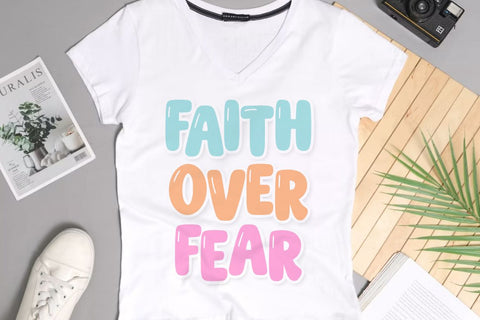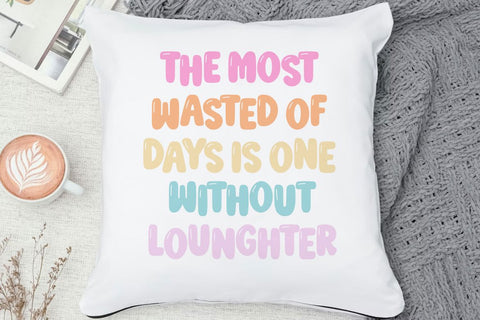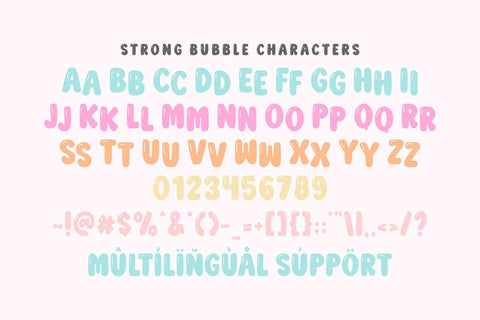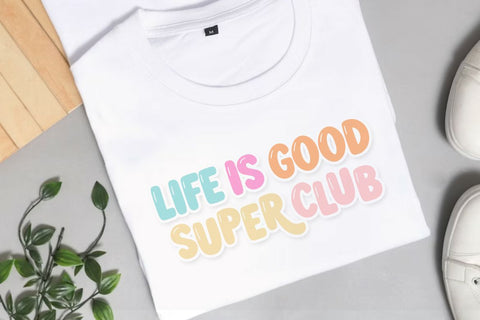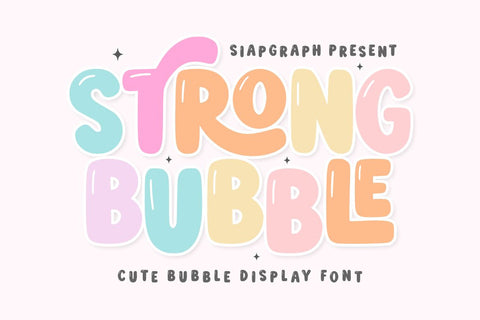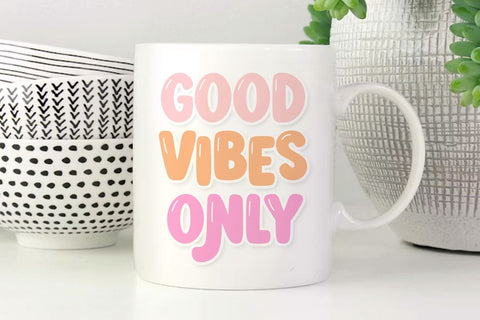
Strong Bubble - Cute Bubble Display Font
Strong bubble is a cute bubble display font that radiates playful energy and cheerful vibes. With its thick, rounded letterforms and subtle glossy highlights, this typeface is perfectly crafted for designs that need to look friendly, approachable, and fun. Its clean, bold construction makes it highly versatile and easy to use for various creative projects.
Perfect for: creating high-converting SVG cut files, personalized stickers, kids' party decorations, adorable nursery wall art, custom t-shirt designs, and playful social media graphics. Whether you are working on Print on Demand (POD) products or personal DIY crafts, this font provides the perfect blend of readability and whimsical personality.
Great for holiday themes such as Birthdays, Summer parties, Children's Day, and Back to School events, adding a sweet, optimistic, and bubbly vibe to all your seasonal designs!